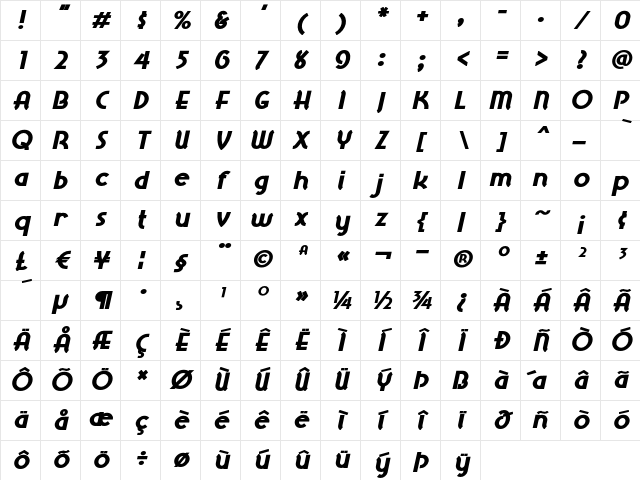
Berrington Bold Italic
Berrington Family
Berrington Bold Italic
Design Context for Berrington
Berrington is a composed and adaptable typeface that performs quietly and consistently across a wide range of design contexts. The slanted form adds forward momentum and visual energy. Its bold stroke weight gives it real presence on the page.
Pro Tip: Use Berrington for emphasis, pull quotes, and subheadings where its slanted energy can add rhythm to the layout.